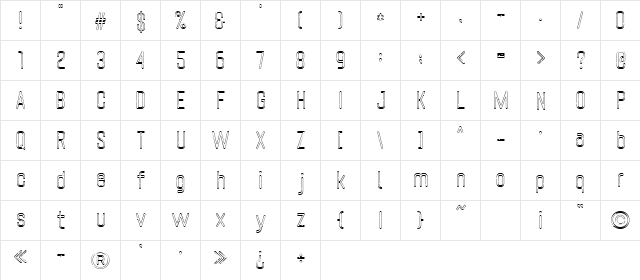
SpaghettiniCarbonara Regular
Design Context for SpaghettiniCarbonara Typeface
SpaghettiniCarbonara takes a measured approach to typography — its balanced proportions and neutral character make it a reliable workhorse for both digital and print work.